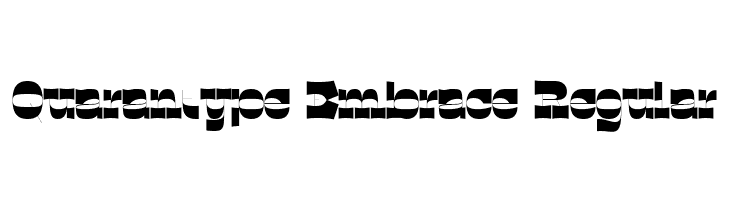
A bold, angular font with a modern, industrial aesthetic.
A modern, sleek font with a futuristic and streamlined design.
A bold, geometric font with a futuristic and angular design.
A font inspired by ancient Greek inscriptions with angular, geometric letterforms.
A modern, rounded font with a bold, futuristic aesthetic.
A pixelated, blocky font with a retro digital aesthetic.
A bold, geometric font with sharp angles and a futuristic style.
A playful, hand-drawn font with dynamic strokes and an artistic feel.
A spooky, jagged font with irregular outlines, ideal for horror themes.
A geometric, angular font with a futuristic and robotic aesthetic.
A bold, geometric font with sharp angles and a futuristic style.
A playful, hand-drawn font with bold, rounded characters and a whimsical style.
A dynamic, calligraphic font with expressive strokes and elegant flow.
A playful and elegant script font with flowing, cursive design.
A playful and elegant script font with a handwritten style.
An elegant, flowing script font with graceful curves and connected strokes.
A refined and elegant script font with flowing, connected letters.
A bold, flowing script font with a modern, handwritten style.
A modern, elegant script font with flowing, slanted characters and dynamic contrast.
A bold, elegant script font with flowing, cursive design.
A charming script font with elegant, flowing curves and a handwritten feel.
A graceful, cursive script font with elegant, flowing characters.
A dynamic, expressive handwritten font with fluid strokes and a brush-like texture.
A playful, elegant script font with a handwritten feel.
A bold, modern sans-serif font with clean lines and strong legibility.
A modern, clean sans-serif font with balanced spacing and consistent stroke width.
A playful, handwritten font with a childlike charm and consistent stroke width.
A bold, dynamic font with a slight slant, offering a modern and energetic look.
( Joanne Abellar - www.anandalusianbitch.com )
A bold, playful font with a dotted texture, ideal for creative projects.
A tall, narrow font with elongated characters, offering a modern and elegant look.
A playful, handwritten-style font with bold, rounded strokes and a quirky design.
( Jmk - Jason Muriithi Kiama )
A bold, geometric font with rounded edges and a modern, playful style.